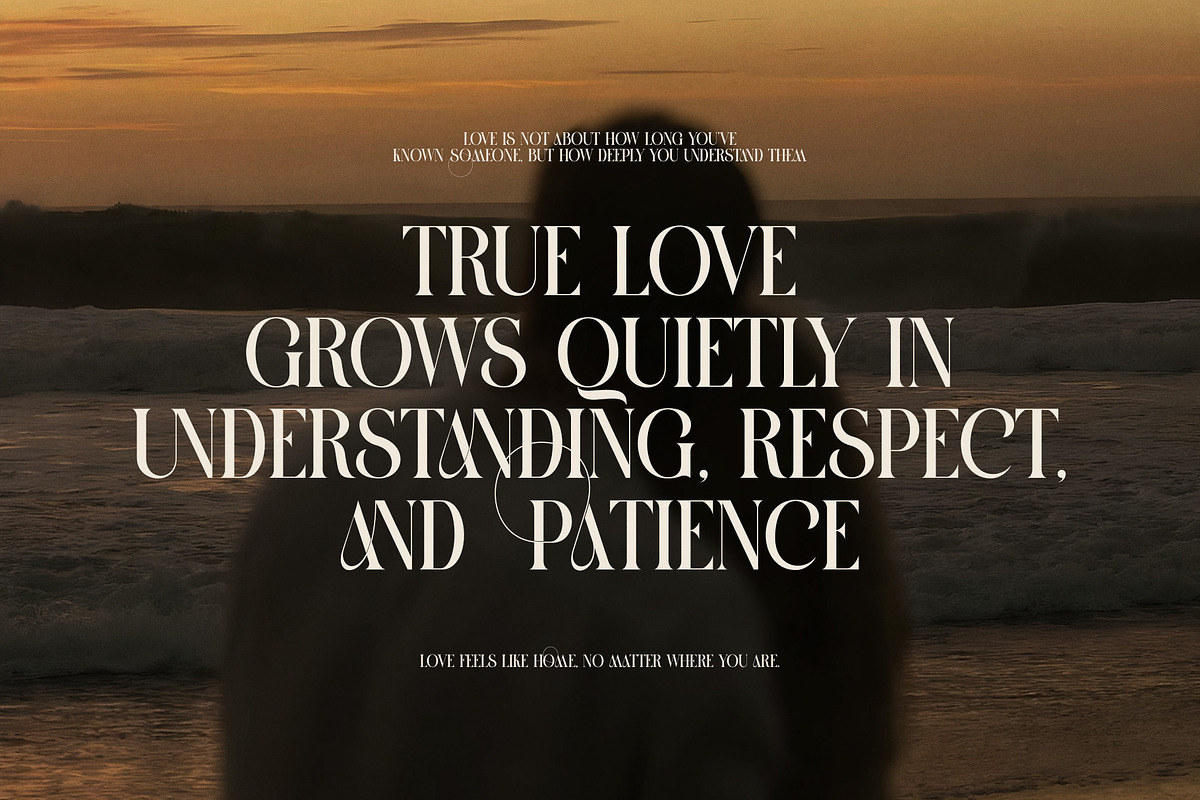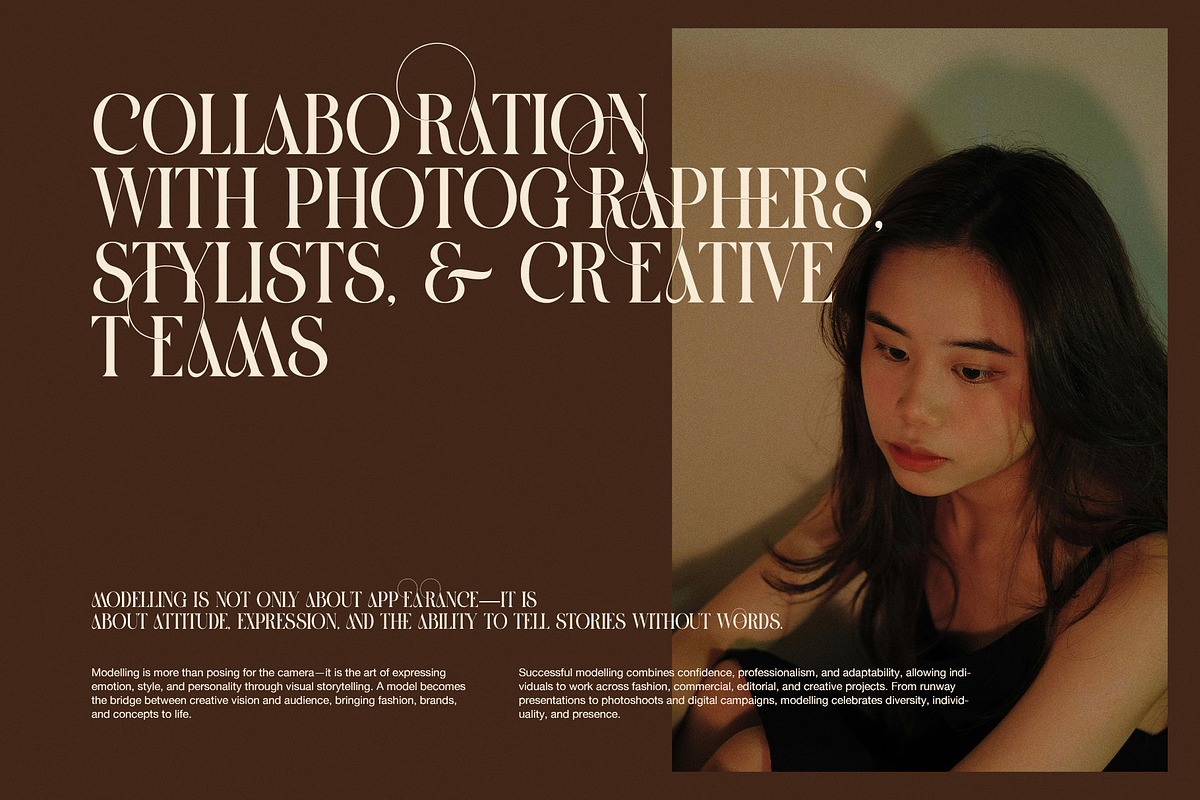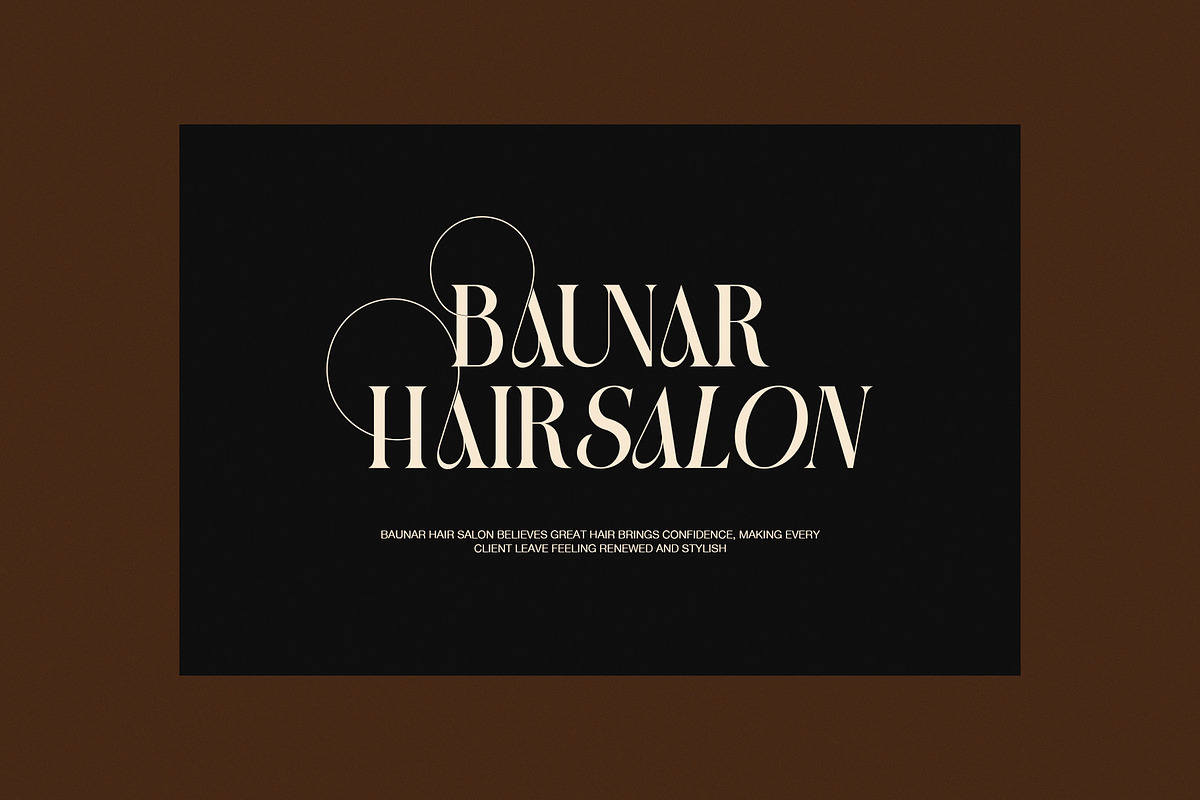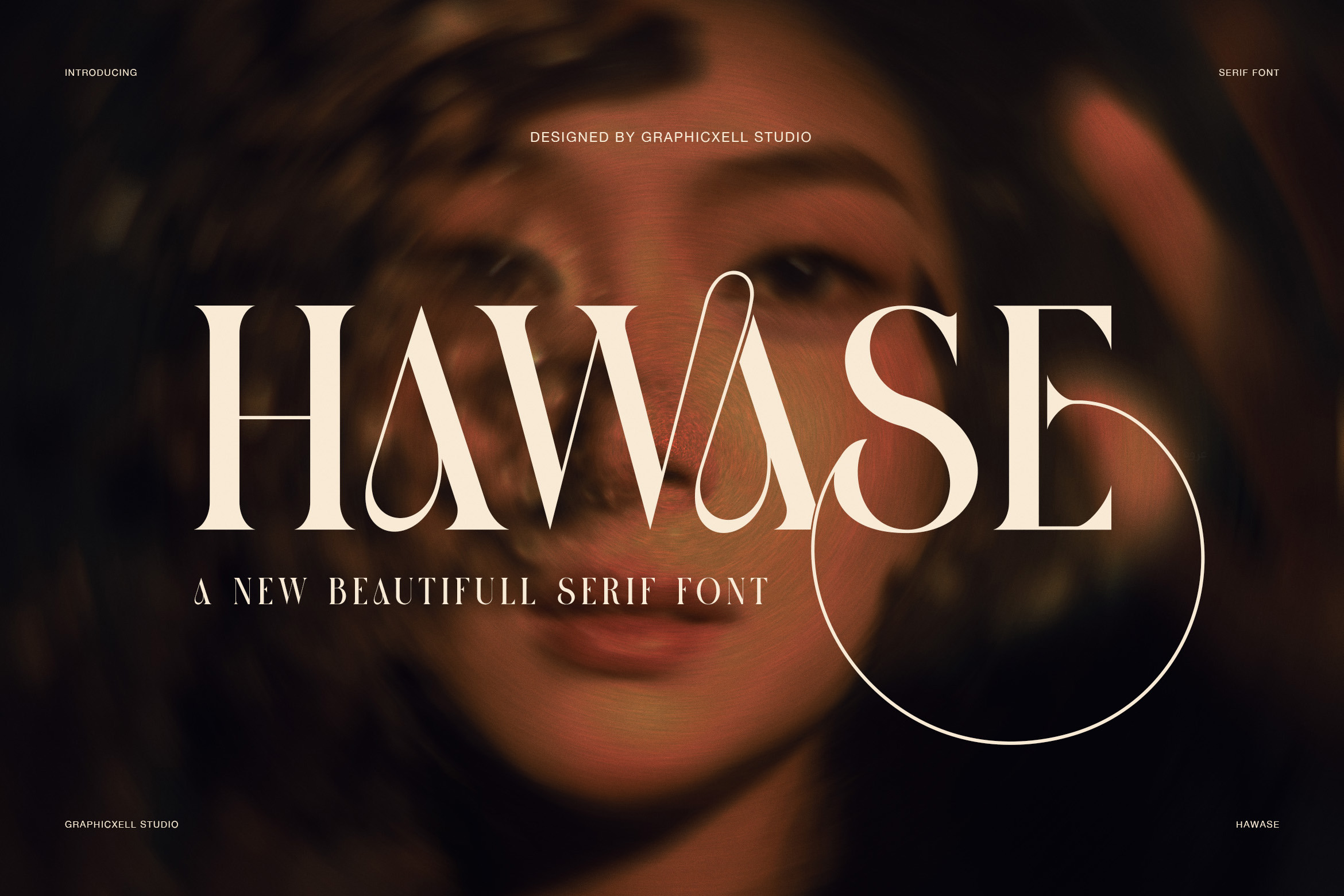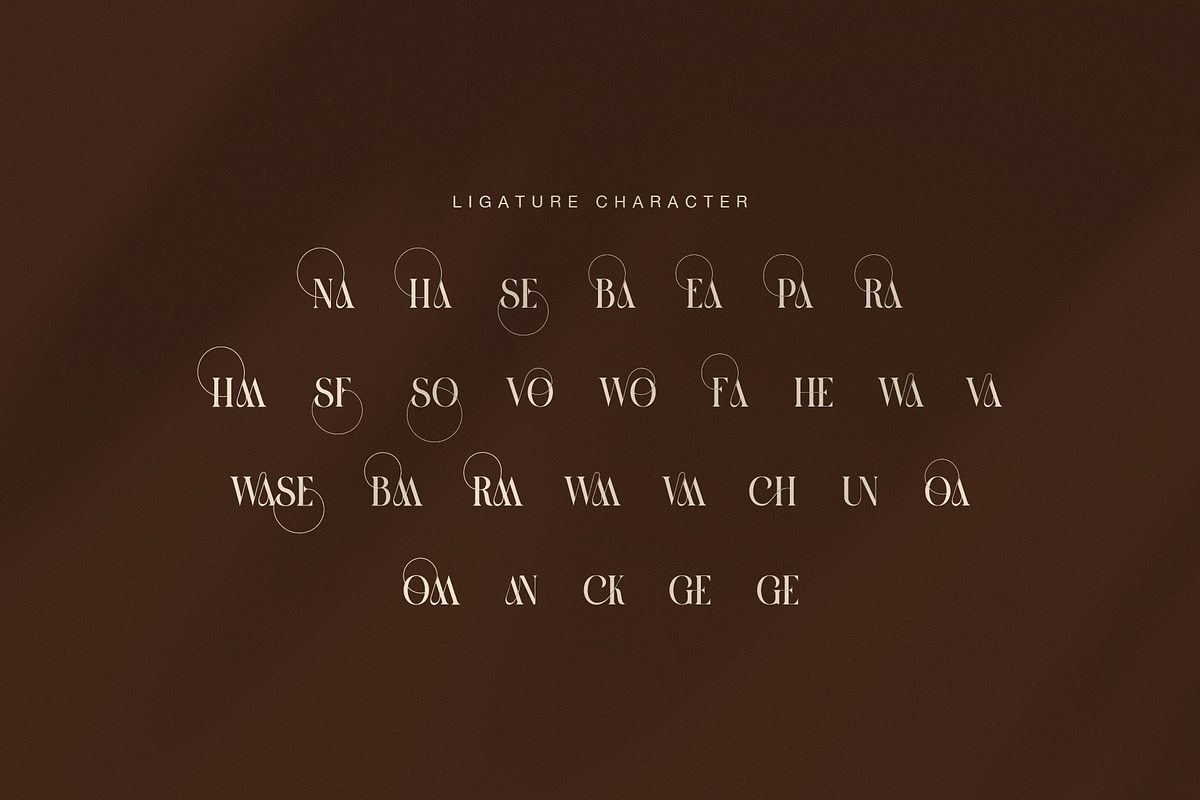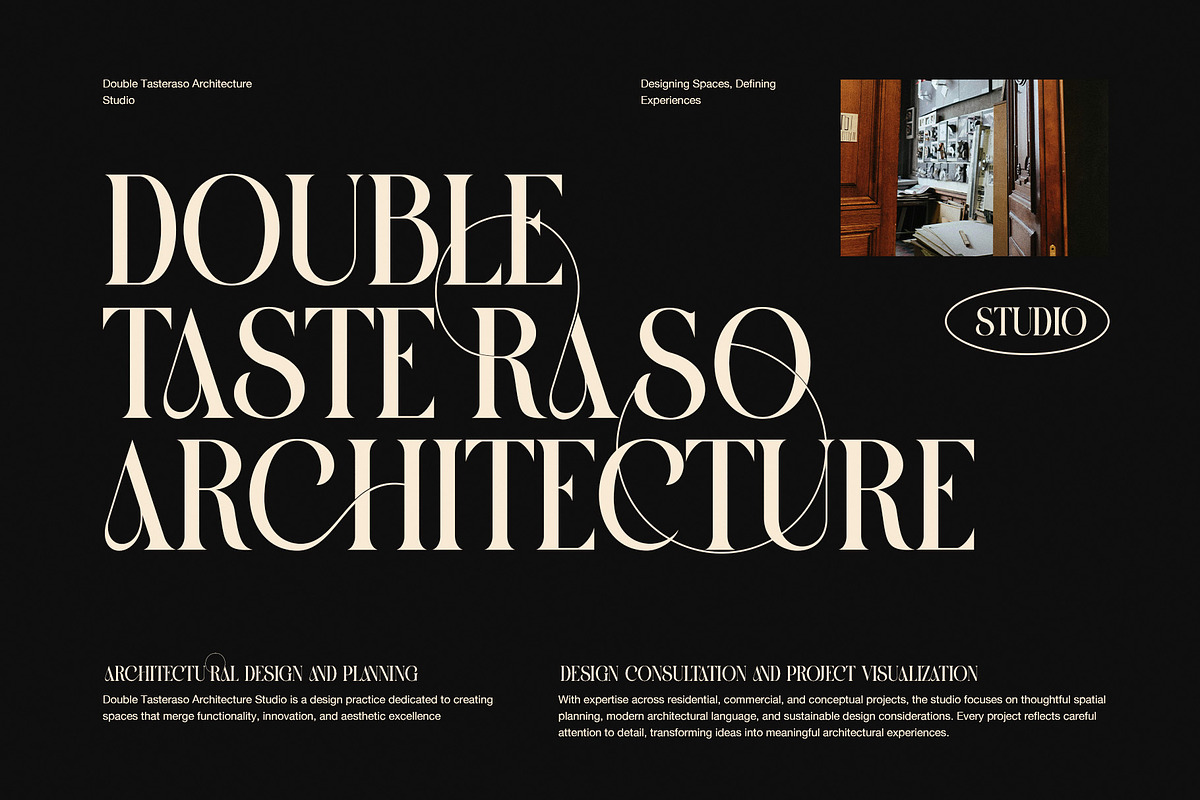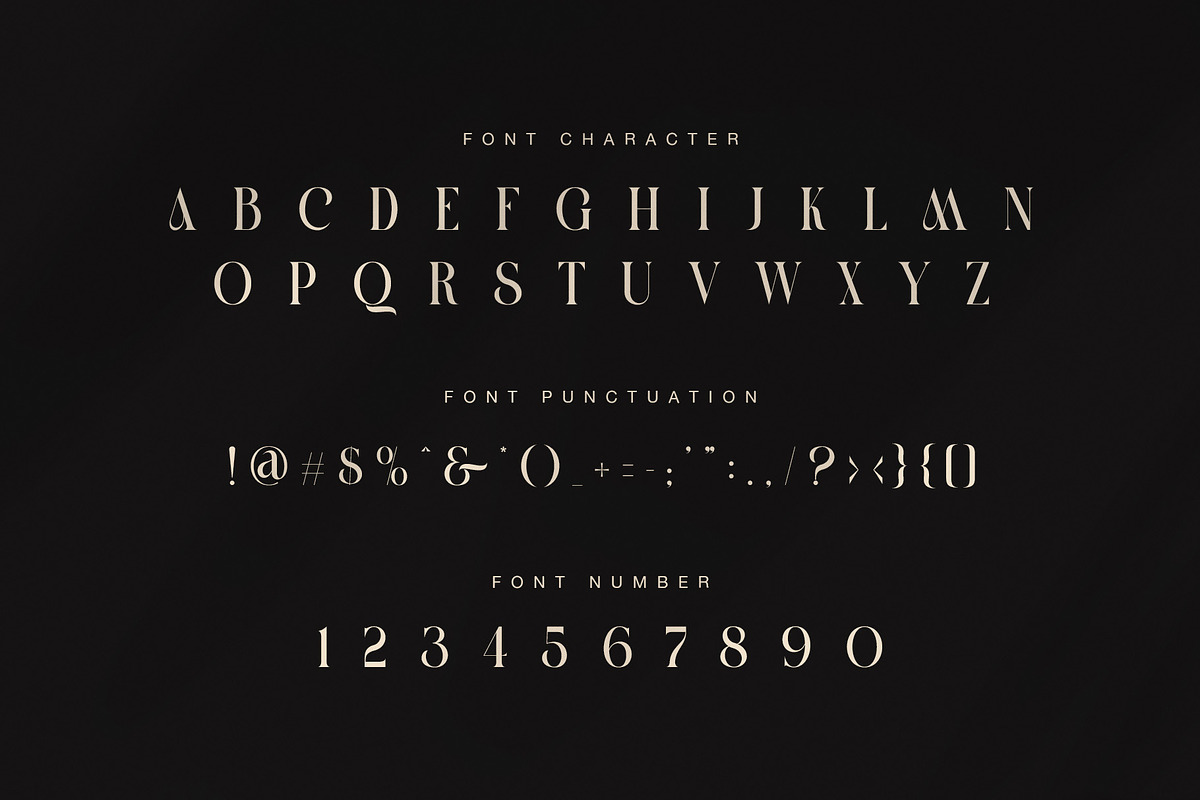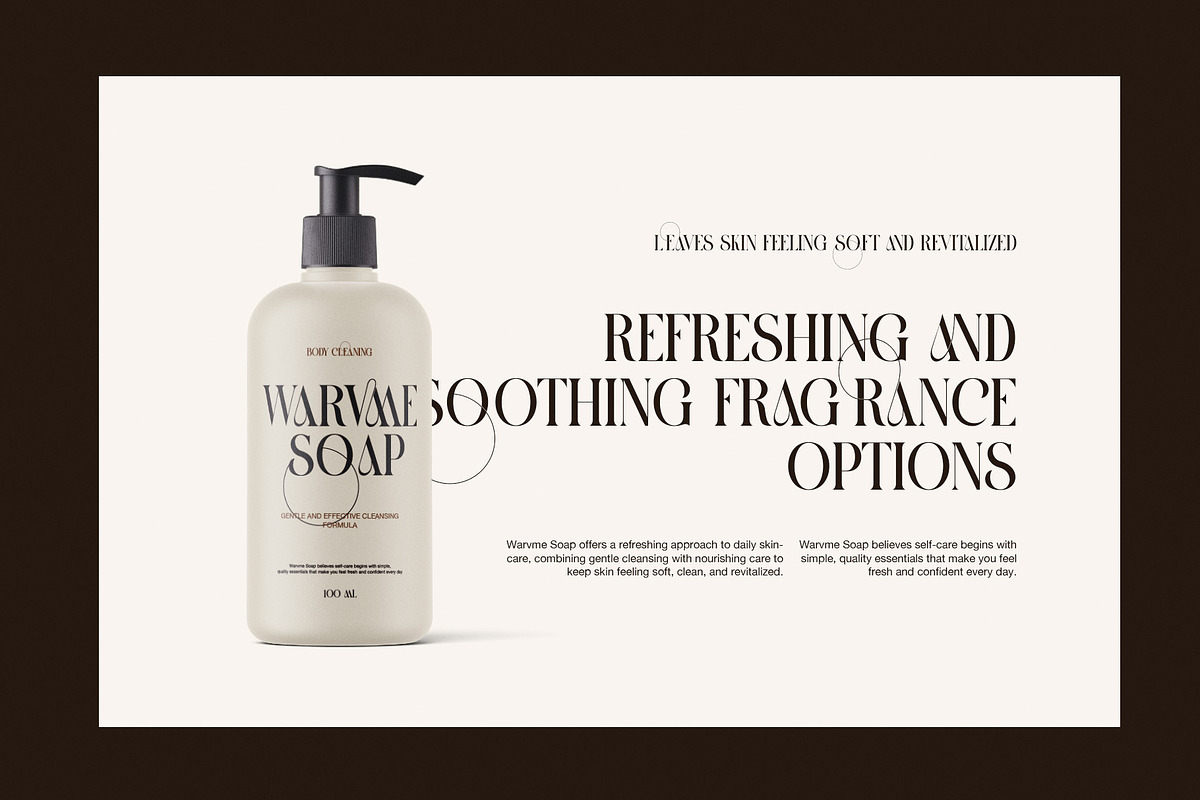
Hawase Elegant Serif Font
Hawase Font Style
Hawase is an elegant serif font with a bold fashion mood and a soft artistic flow. It mixes sharp serif forms with long decorative curves, so the result feels refined, dramatic, and full of character. At first glance, the font looks luxurious. However, it also feels modern and expressive, which makes it stand out in many creative layouts.
The letterforms are tall, clean, and high contrast. In addition, several characters include long looping strokes that give each word a custom look. Because of that, Hawase feels more than simple. It feels stylish, memorable, and made for strong visual impact.
Shape and Visual Character
Hawase has a graceful structure, yet it also carries a striking display presence. The uppercase letters look firm and elegant, while the curved details soften the overall tone. Moreover, the thin-to-thick contrast adds a premium feel that works well in luxury design.
The decorative alternates and ligatures make this font even more special. They add movement, rhythm, and beauty without making the text hard to read. Therefore, Hawase is a smart choice for designers who want a serif font that feels classic, but still fresh and eye-catching.
Best Uses for Hawase
Hawase works best in large display settings where detail can shine. It looks beautiful in fashion branding, beauty packaging, editorial titles, salon logos, product labels, wedding stationery, and luxury posters. At the same time, it also fits architecture branding, creative studio identities, and social media graphics.
Hawase is a great choice for:
- fashion branding
- beauty packaging
- editorial headlines
- salon logos
- luxury posters
- wedding stationery
- studio branding
- product labels
- Features and Benefits
Hawase offers more than a beautiful shape. It gives designers a refined serif style with elegant ligatures, decorative alternates, numbers, and punctuation for flexible design use. As a result, it helps text look more custom, premium, and expressive.
Even better, Hawase can shift across many themes with ease. It can feel romantic for wedding work, polished for beauty brands, and bold for fashion campaigns. Because of that, this elegant serif font is useful for many visual projects. If you want a typeface that blends classic beauty, dramatic curves, and a modern luxury mood, Hawase is a beautiful and confident choice.